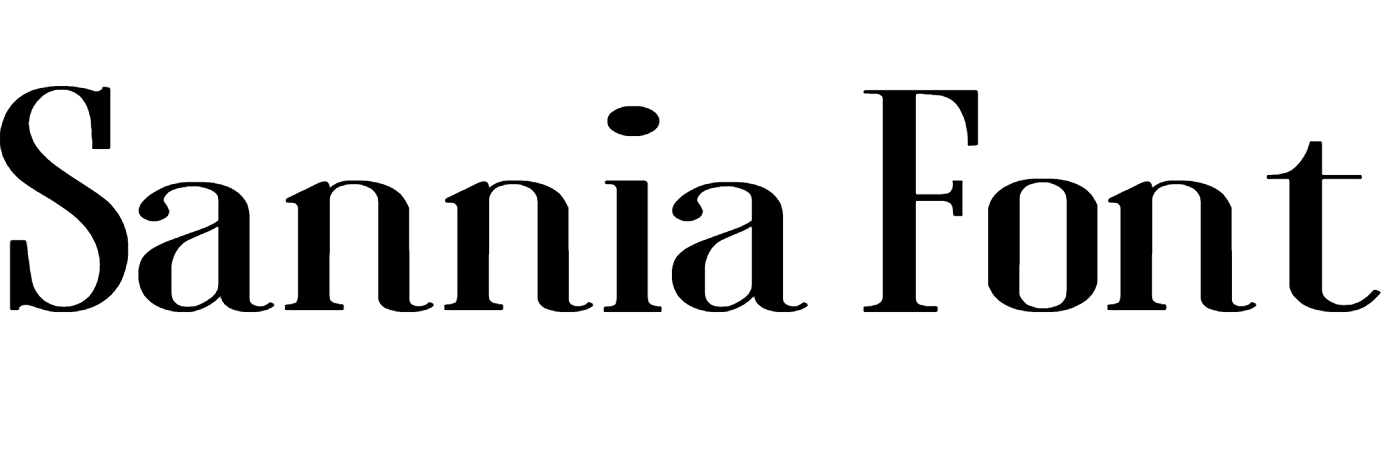
Sannia
Sannia is a serif font designed by Display Studio (2021). It has the traditional, bookish feel of type you see in novels, newspapers and long-established brands. You can download it for free and test it with your own words in the preview above.
- Designer: Display Studio
- Extra characters: 43 copy-and-paste alternates (Private Use Area)
What You Can Type With Sannia
Sannia covers the full alphabet in upper and lowercase, plus all ten numbers, so you can set names, dates and prices without switching fonts. Common punctuation such as &, !, ? and @ is included as well. It also has the accented letters you need for Spanish, French, German, Portuguese and Italian.
How to Use the Alternate Letters in Sannia
Where Sannia Works Best
Sannia is a natural fit for book covers, magazine headlines and classic branding. The file has no kerning data, so in logos and big titles check pairs like AV, To and Wa and tighten the spacing by hand. Serif fonts shine in headlines and printed text. For long paragraphs on phones, check that it still reads well at small sizes.
Who designed Sannia font?
Does Sannia support accented letters?
Yes. Sannia includes the accented letters needed for Spanish, French, German, Portuguese and Italian, so it works for more than just English.